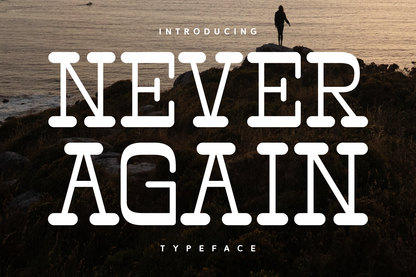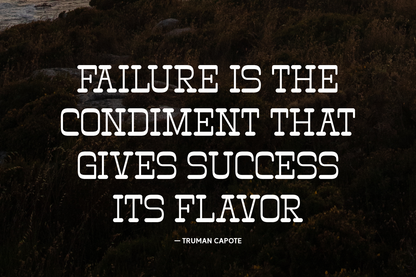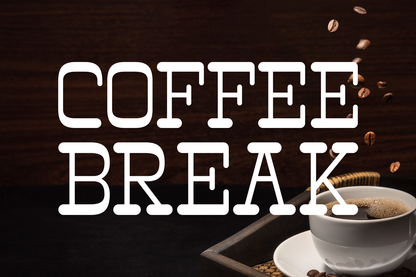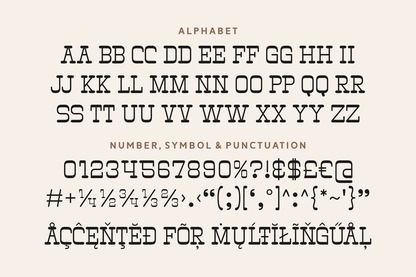
Never Again is a bold serif typeface with a distinctively strong and structured look. Its rounded terminals add a modern twist to its classic roots, making it perfect for impactful headlines, vintage posters, motivational quotes, apparel branding, and editorial design. This font stands tall with character and confidence.